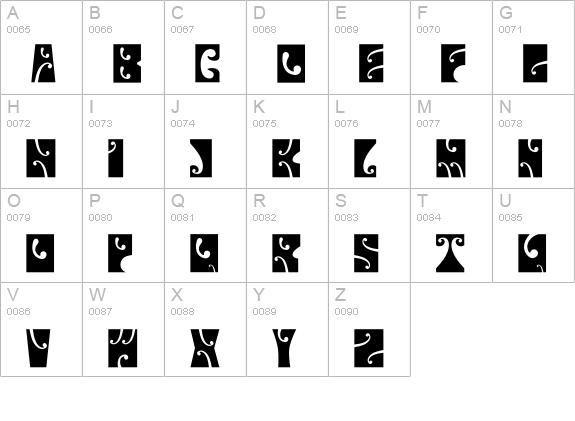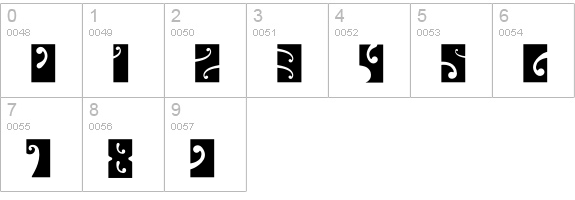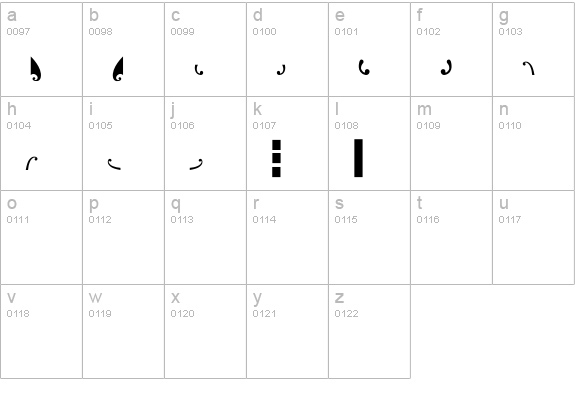
Psychedelic-FillmoreEast Font Details
The Psychedelic-FillmoreEast font is a groovy and vibrant display typeface that captures the essence of the 1960s counterculture movement. With its bold and swirling letterforms, this font exudes a sense of energy and creativity that is perfect for making a statement in your designs. Whether you're working on a poster, album cover, or branding project, the Psychedelic-FillmoreEast font is sure to add a touch of retro flair. Best of all, this font is available for free download at FontsMarket.com. Embrace the spirit of the '60s and infuse your designs with a psychedelic vibe that will captivate your audience. Let your creativity run wild with the Psychedelic-FillmoreEast font and bring a touch of nostalgia to your projects.